Pairing WordPress fonts together is one of the more enjoyable aspects of building your website. With hundreds of WordPress fonts out there, your choice of font pairs allows you to inject a bit of your unique personality into the final product (i.e., your website).
However, given the sizable pool of choices, it’s inevitable that some fonts will pair better than others, and some fonts will even downright clash with each other. That’s why it’s important to choose from a narrowed down list of proven winners.
To help you out, we researched the best WordPress fonts available. These fonts pair better than milk and cookies… according to science! In addition, we included a shortlist of some WordPress font examples from some beautifully-designed sites. This way you can choose the ones that you think will work best for you.
But first… why should you even care?
1. Why your font choice matters 💡
The font you choose might seem totally unimportant at first glance. As long as it’s legible, who cares what font type you use, right?
Well, typeface actually matters. Different font types have different levels of readability, different personality and style, and convey very different messages to your readers.
We’ll get more into what message certain fonts present in the next two sections, but it boils down to this:
People will judge your site’s feel and trustworthiness based on your font choice. So choose well!
2. The psychology of typeface 🧠
While it’s not an exact science, there is a psychology behind your font choice. Different typefaces put people into different moods.
While I could write a full paper on the different studies that have been done around this, instead I’ll just show you an infographic made by Ted Hunt for CrazyEgg.
As you can see, there are five major categories of font types:
- Serif (The traditional typeface – not good for reading on the web, better for headings than body copy)
- Sans Serif (A clean, modern font – high readability, great for body copy, the most popular choice for WordPress sites)
- Modern (A progressive, stylish font – good readability, can be used for body text or headings)
- Display (The personality choice – alright readability, better for headers than as the main font)
- Script (The fancy font – lowest readability, please don’t use this in your body, and use sparingly for headings, better for logos)
So ask yourself:
What kind of personality does your brand have? What do you want people to feel when they visit your site – clean and modern, cheeky and edgy, fancy, traditional, or unique?
Pick the fonts that best pair with that.
3. WordPress fonts that pair well 🥛🍪
If you can’t decide what fonts to use, don’t worry – I totally understand. Choosing the right font combination can be stressful. That’s why I made this section – to give you WordPress fonts examples from beautifully designed sites.
In other words, to remove the guesswork, so you can make your site look amazing as quickly as possible.
Think of this as a sort of WordPress font list. I’ll give you one example of each font family.
- Serif: Wall Street Journal
- Sans-serif: L’Étude
- Modern: helloMuller
- Script: Contrast Web
- Display: WebLounge
Let’s get right to it!
Serif: The Wall Street Journal
The Wall Street Journal uses a very traditional type. Their logo uses Escrow, a serif type font. However, their body still uses sans-serif, which you’ll find on almost every website today because of it’s extremely high readability.
Fonts used: Escrow, Whitney SSm, Chronicle Display, Chronicle SSm
Sans-serif: L’Étude
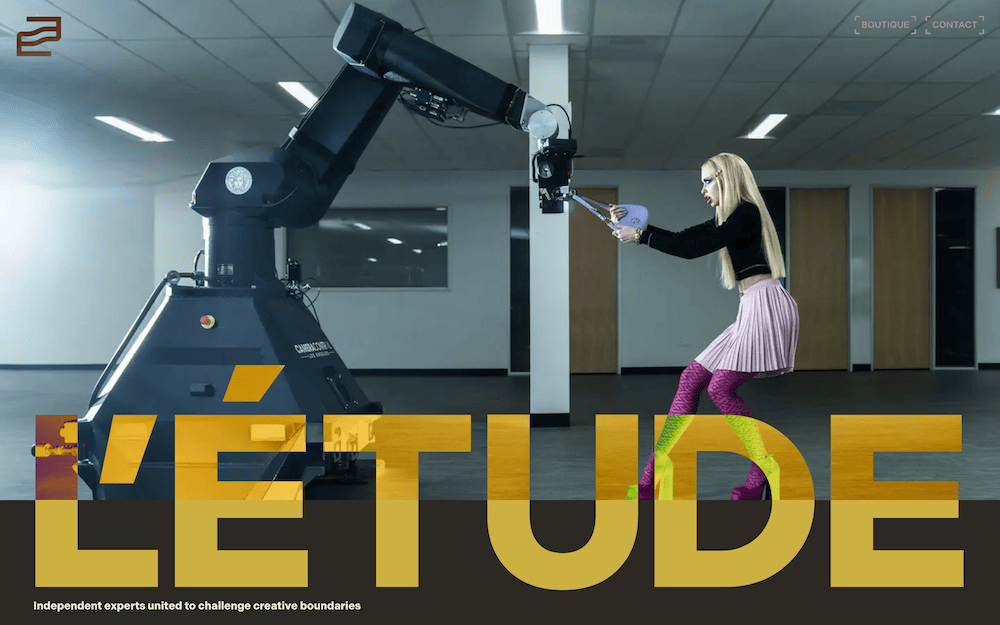
Pan-continental creative studio, L’Étude keeps things simple with one sans-serif font. In this case, it’s Process Type Foundry’s Indivisible. However, there are many other sites that use sans-serif fonts, and there are so many choices for this kind of typeface. It’s quite versatile.
Fonts used: Indivisible
Modern: helloMuller
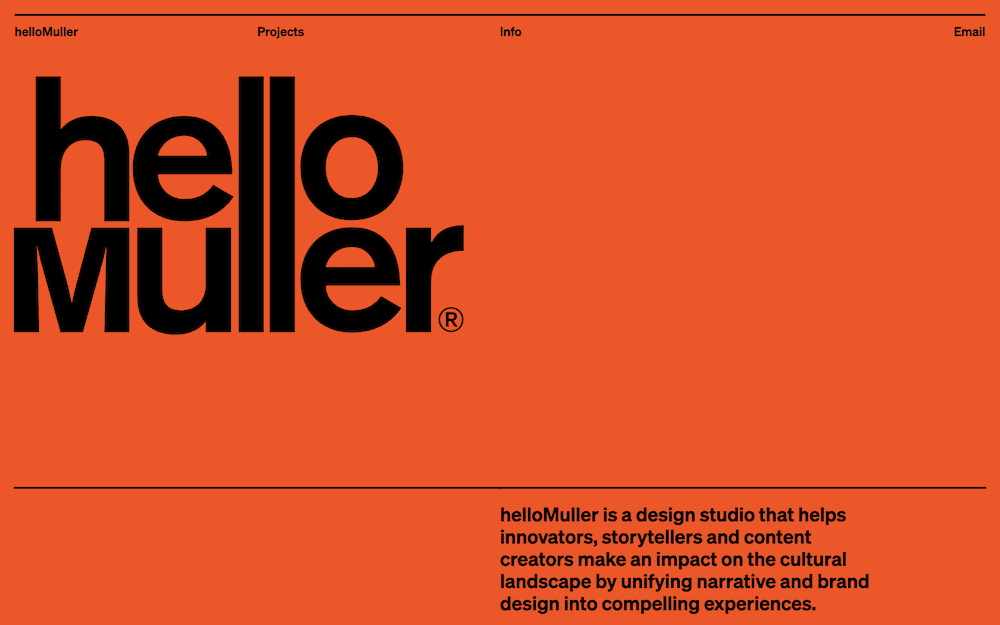
The helloMuller design studio also sticks with simplicity, going for the Söhne typeface. This takes inspiration from Helvetica and Akzidenz-Grotesk. The latter’s influence on this modern sans-serif font is clear. Both the body copy and headings look gorgeous and cool too. We encourage you to check out helloMuller’s projects: X-Men, Skyrim, and more!
Fonts used: Söhne
Script: Contrast Web
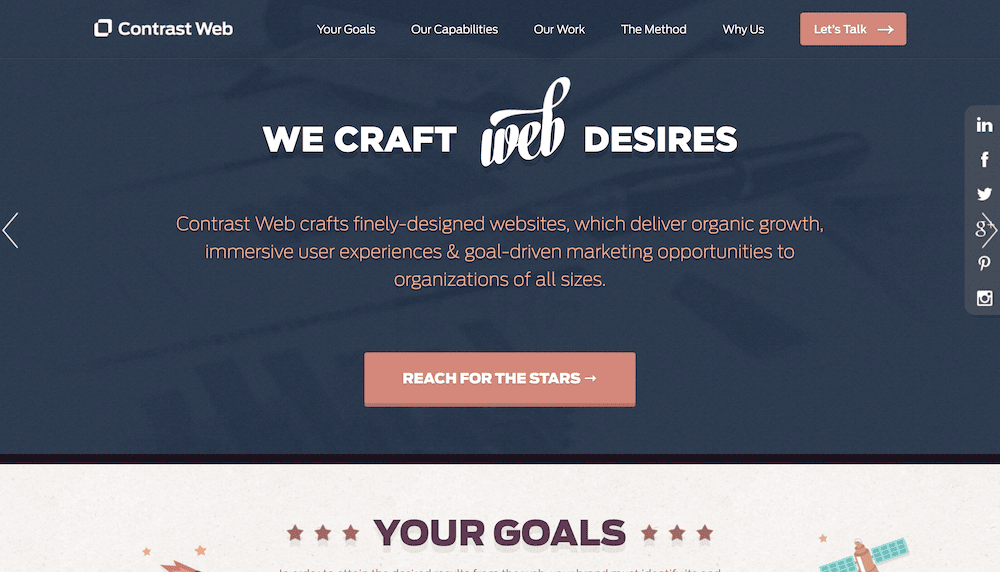
You won’t find many examples of script fonts being used for web text, but development studio Contrast Web is an exception to this rule! The reason being, is that sites prefer to choose readability over the fancy aesthetics provided by scripts. In Contrast Web’s case, the Antenna font is a more “diplomatic” choice, but note their use of Voyage to highlight specific words. It’s a clever touch, and an excellent use of script fonts.
Fonts used: Antenna, Gotham, Voyage
Display: WebLounge
Web Lounge uses a combination of traditional sans font, elegant script font, and sans serif fonts. They actually won a spot on Awwwards 20 best web font choices.
Fonts used: Museo Sans, Playfair Display
💡 Pro Tip: See a font you like on a certain site? Use the WhatFont Chrome extension to quickly see what fonts they’re using!
4. How to change fonts in a WordPress theme ↔️
You can change fonts across your entire theme, or in individual WordPress posts and pages. It’s not very difficult, especially if you’re using a good theme.
We’ve already written an extensive guide on how to change your WordPress typography. So go check it out if you need help updating your fonts.
(It gives you three options – the theme settings, with a plugin, or with code. Whichever is easiest for you!)
Final thoughts on WordPress fonts 🏁
There are so many friggin’ choices when it comes to WordPress fonts. Don’t freak out and don’t succumb to analysis paralysis. It all boils down to a simple three-step process:
- Decide what emotions you want your site and your brand to convey
- Pick a font from the family that conveys that emotion (more on that in the infographic)
- Find a good sans serif font for your main body text that pairs well with your heading font
With all the examples and information we gave you here, you should have no problem choosing an awesome font.